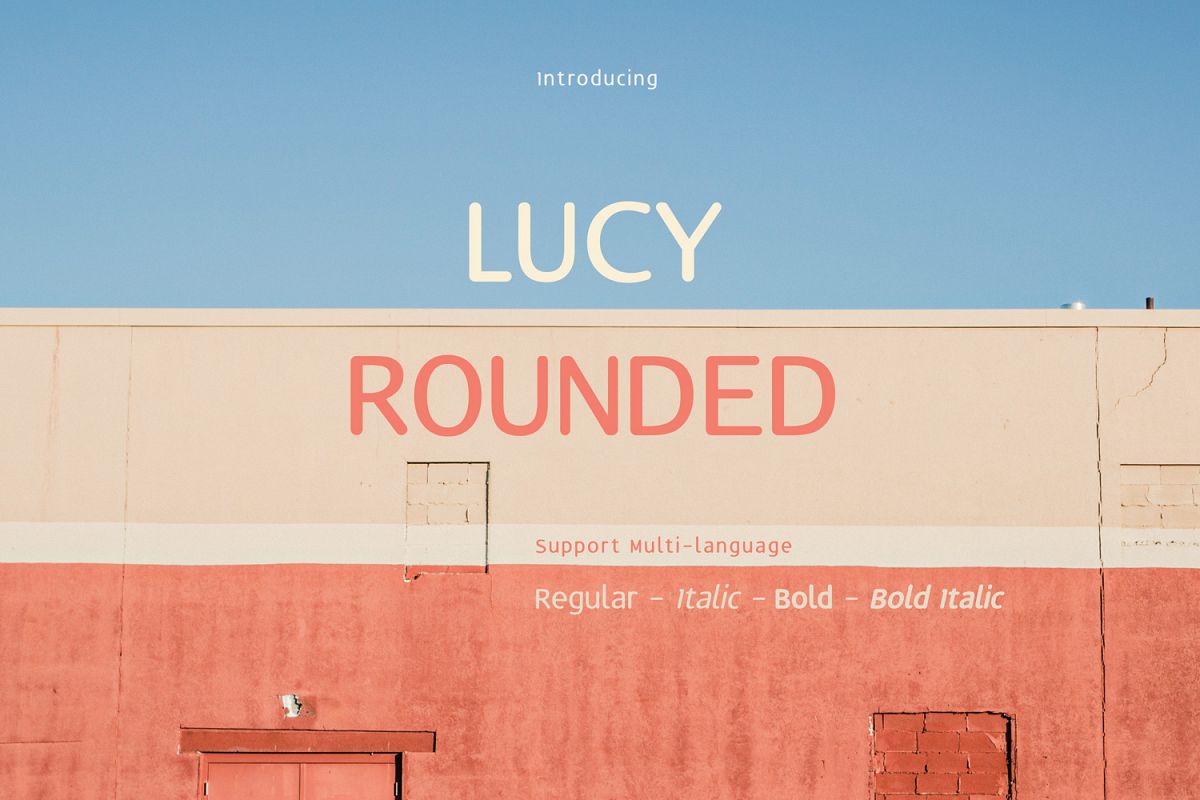
Lucy Rounded
Introducing Lucy Rounded.
A simple and modern geometric san-serif in rounded shape. This typeface comes in Regular, Italic, Bold and Bold Italic, can be use for quotes, logotype, title and body text.
Font feature: Upper case, Lower case, Numeral, Punctuation and Ligatures. Support multi-language.